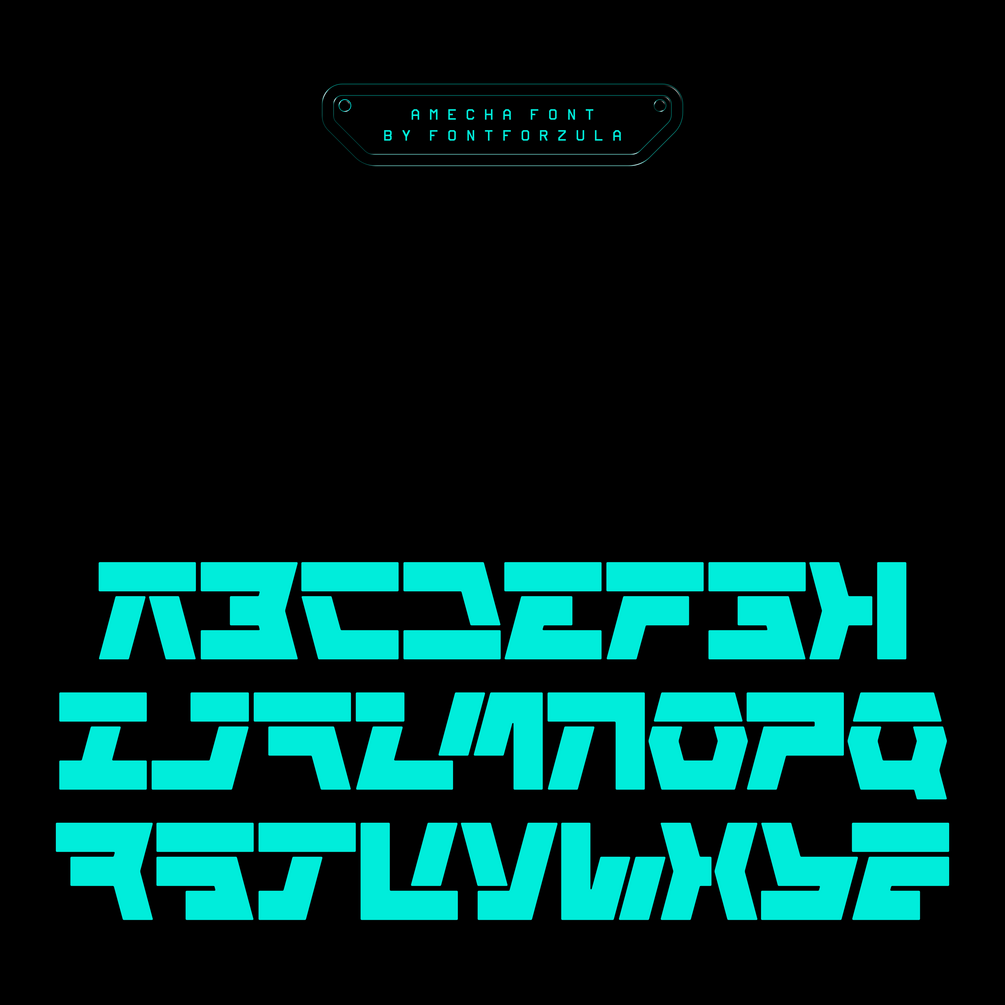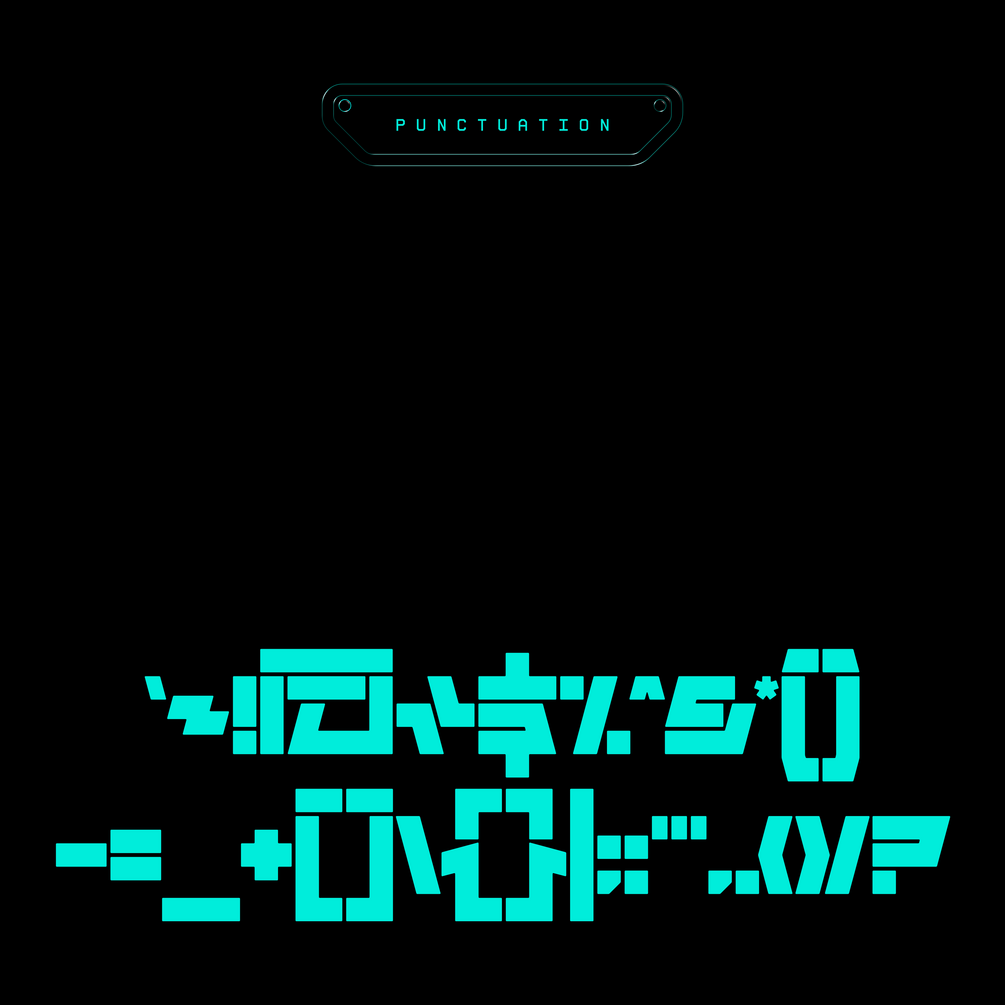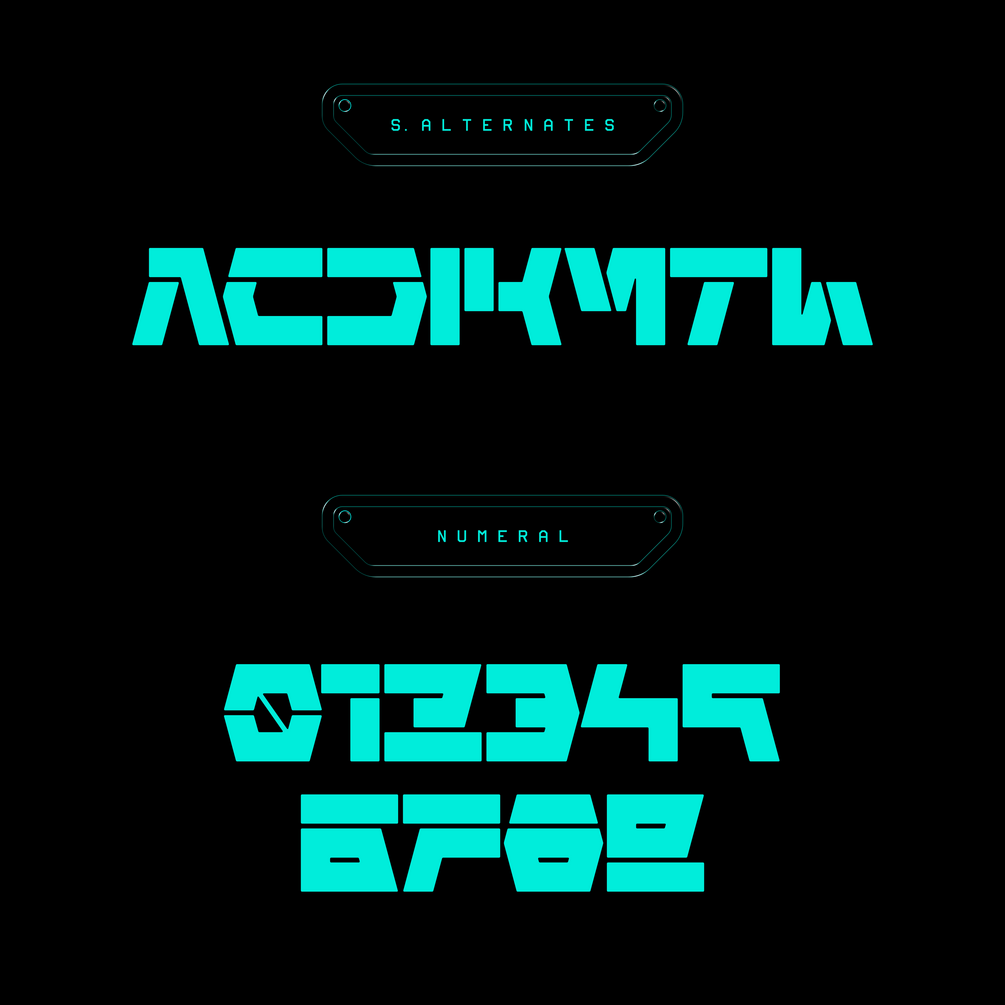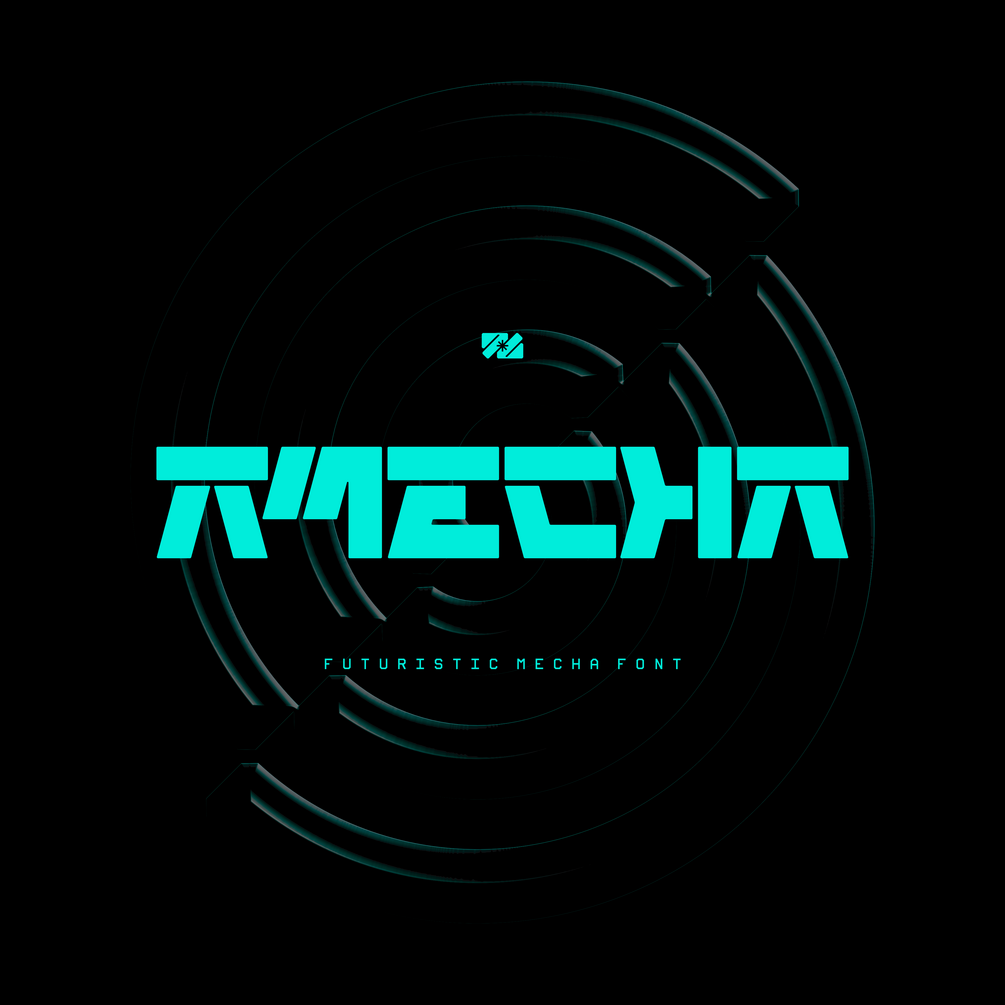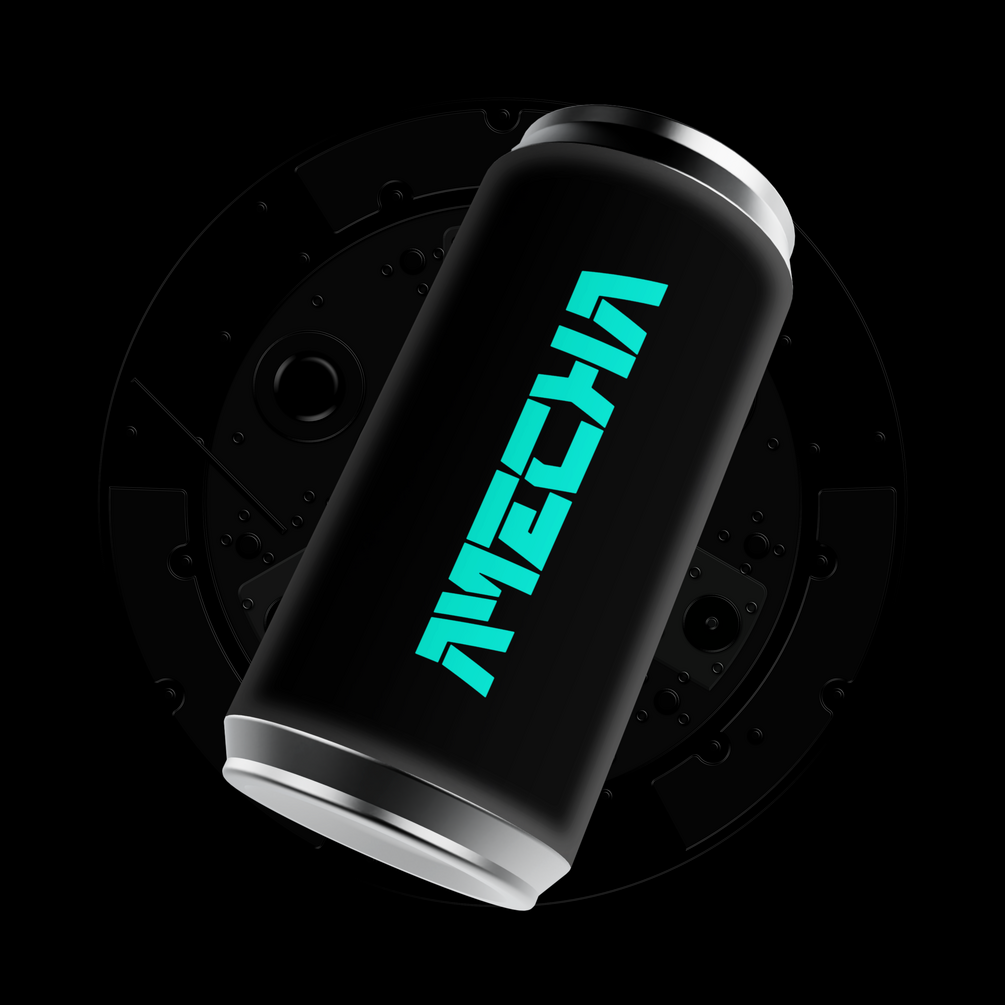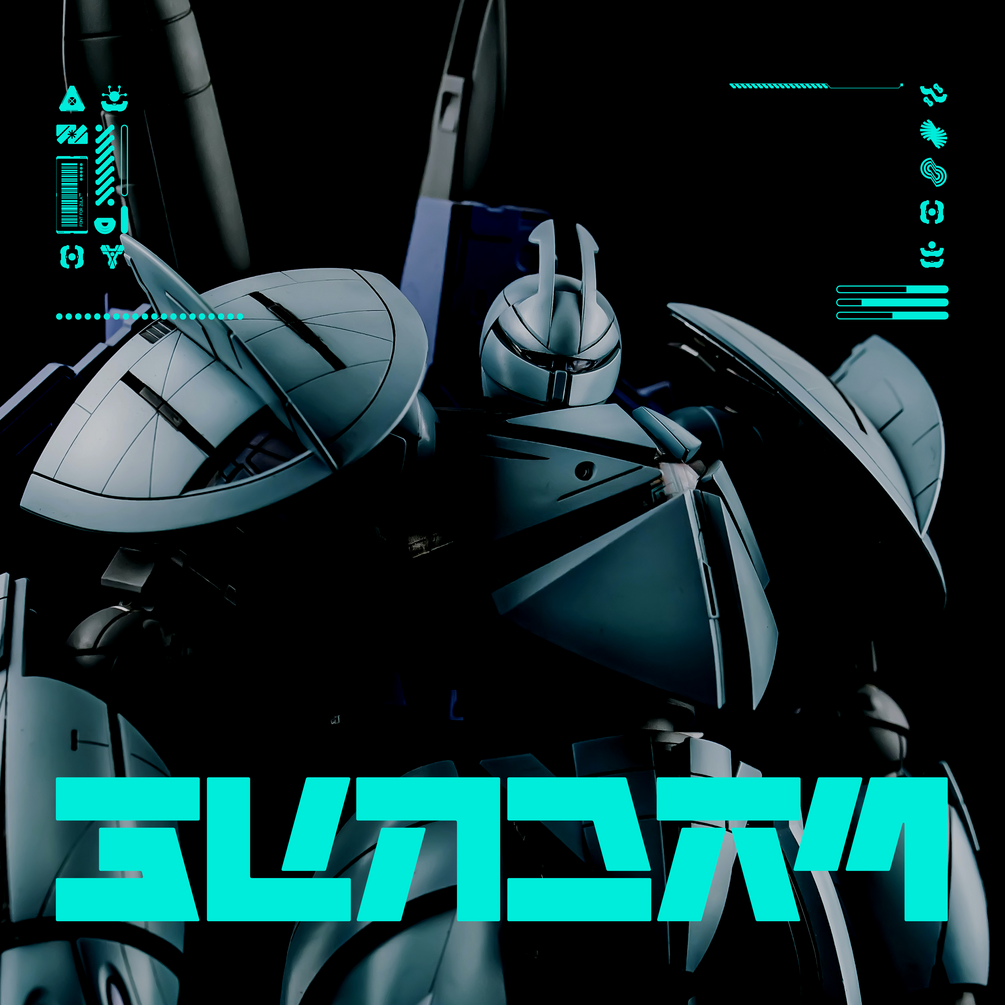
AMECHA
AMECHA : another powerful and versatile futuristic mecha-style font for your latest design project.
This typeface embodies a strong sense of futurism and modernity. It proves ideal for a myriad of applications, including brands, logos, posters, apparel, and beyond.
AMECHA TYPEFACE INCLUDE:
- 26 Letters
- 8 S. Alternates
- 10 Numerals
- Punctuation